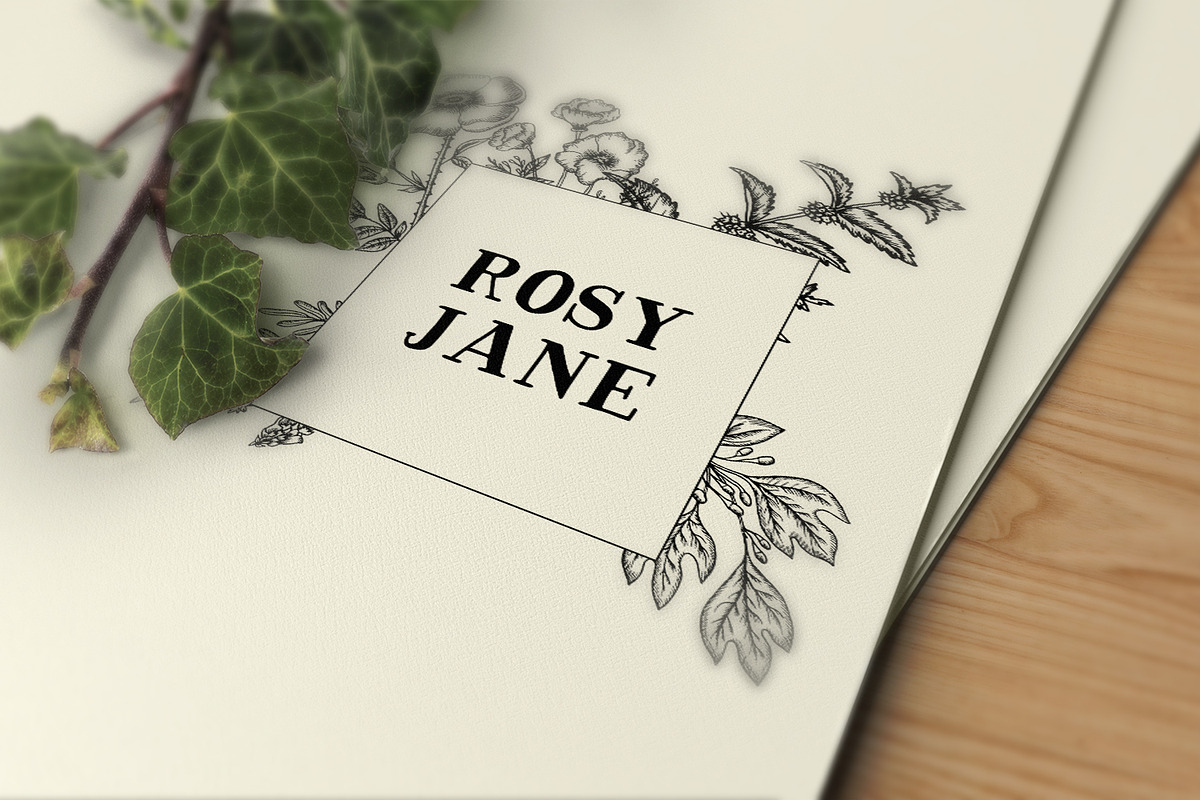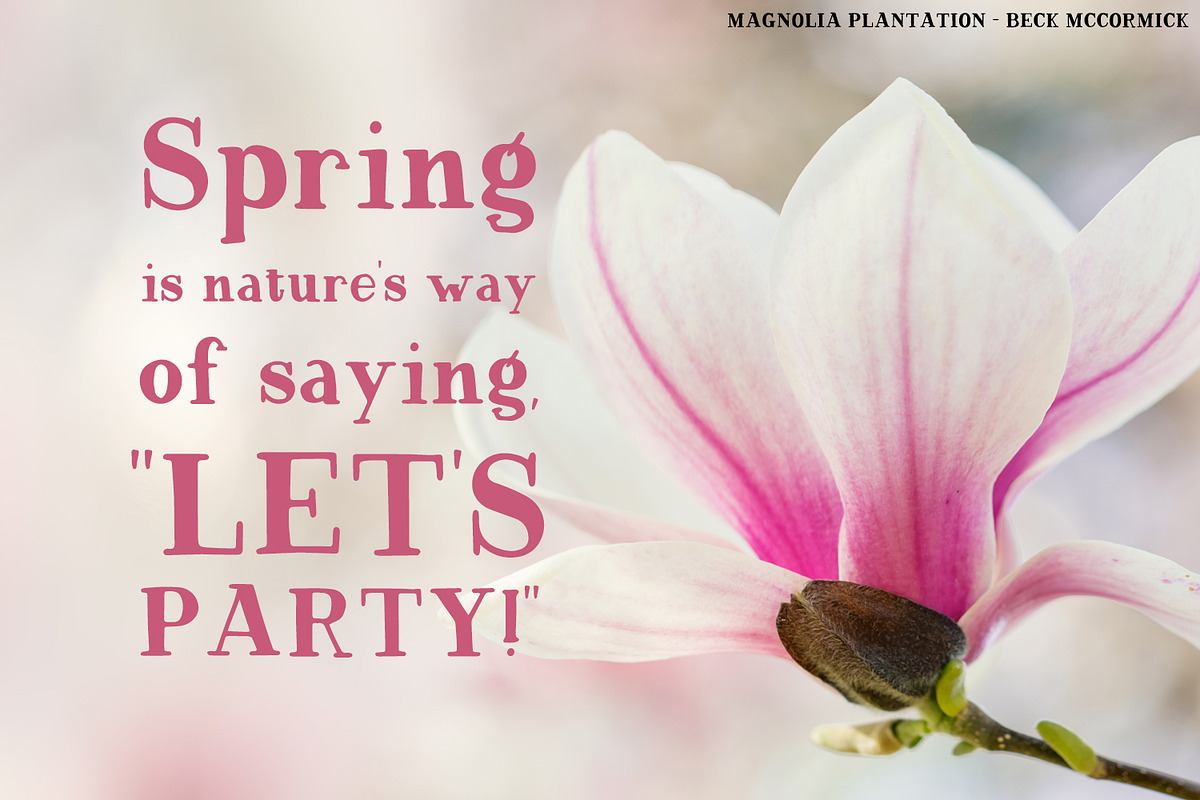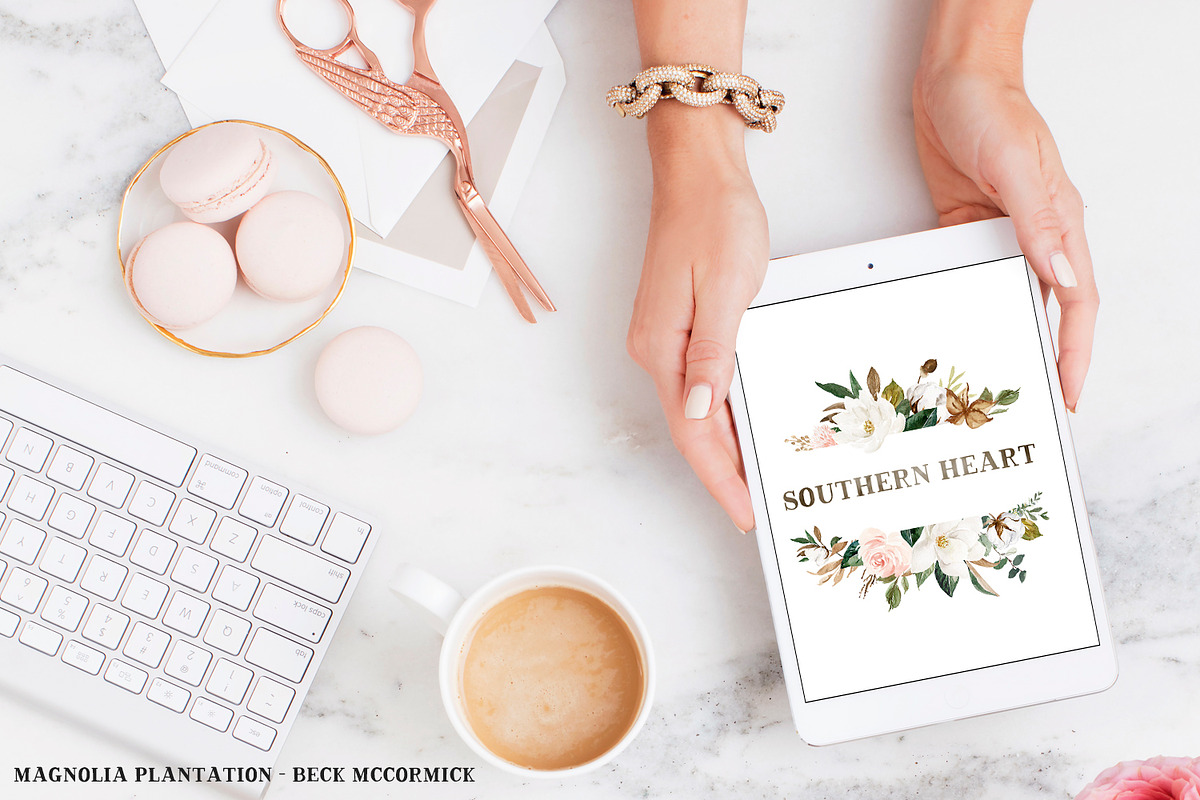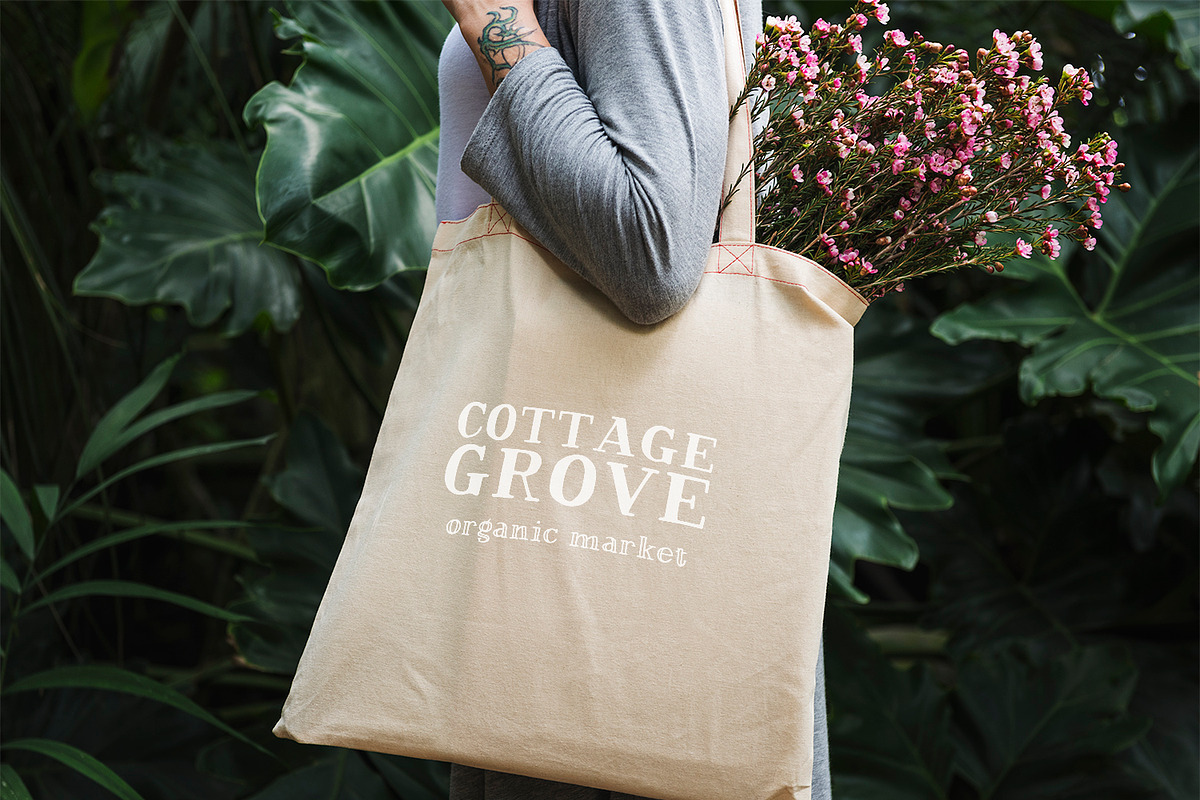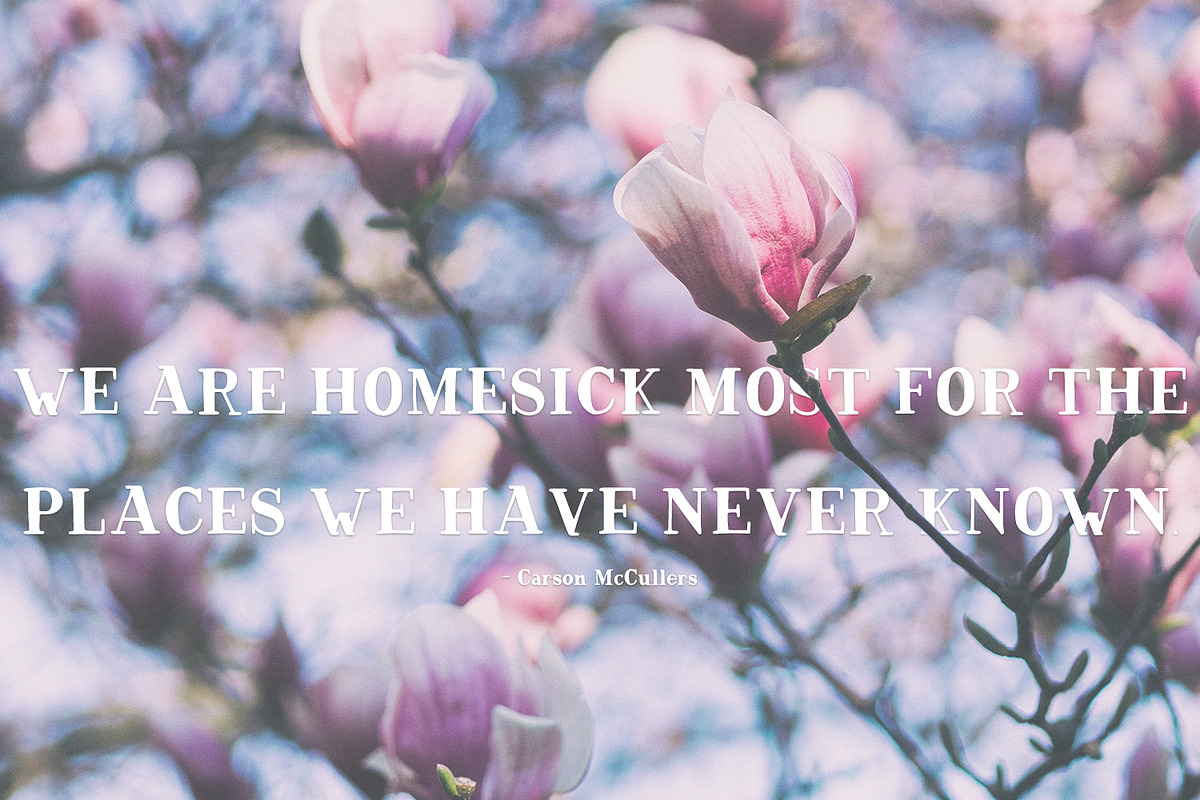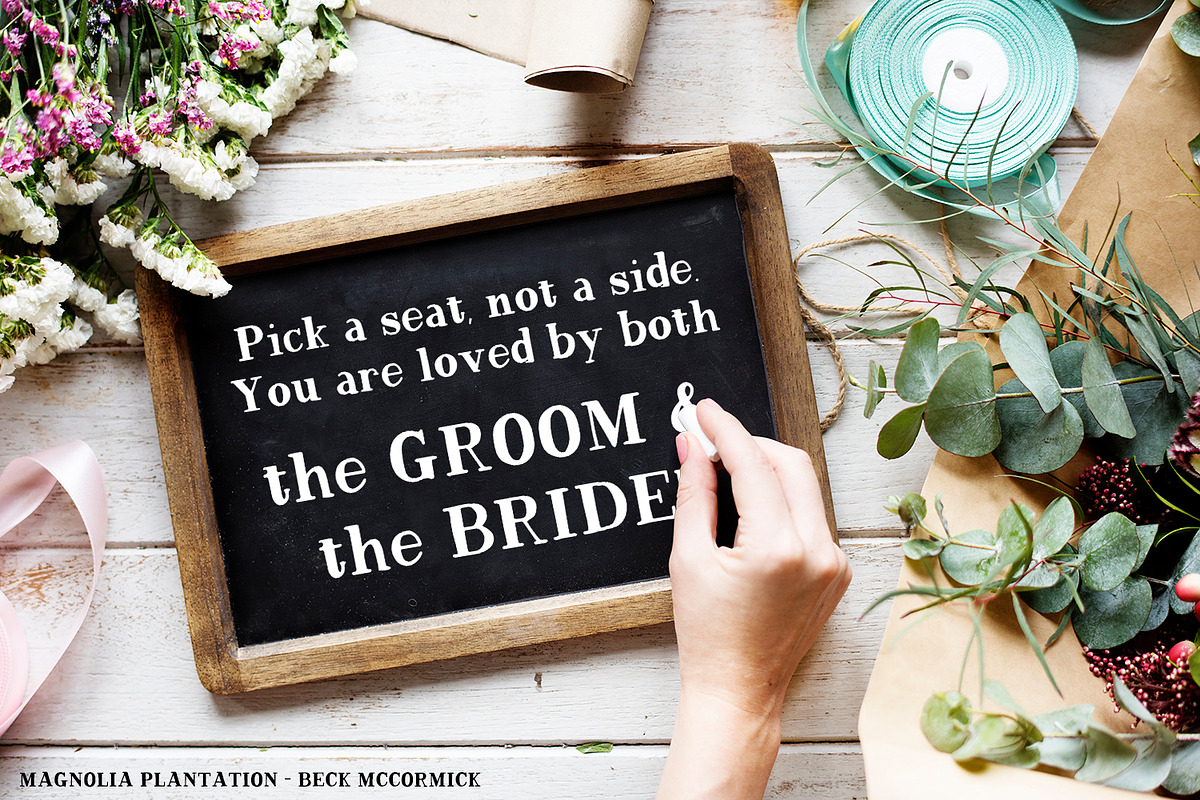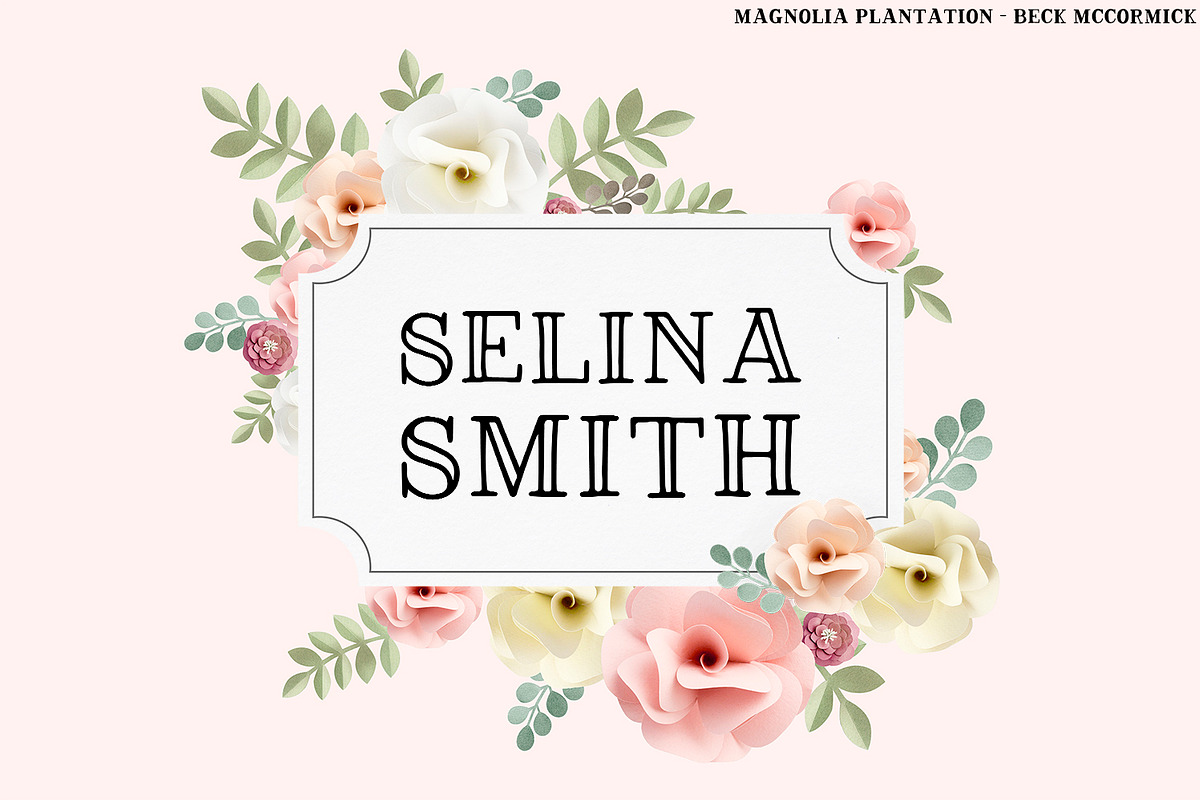
Magnolia Tree Rustic Font
Magnolia Tree is a beautiful hand-lettered serif font duo — a regular version, and an in-line version is included. It has just enough rustic charm & refinement, without the harsh edges & corners of a traditional serif font. Inspired by Charleston, Magnolia Tree is sweetly southern!
Magnolia Tree is fantastic for your next project, including branding, wedding invitations, signage, & more.